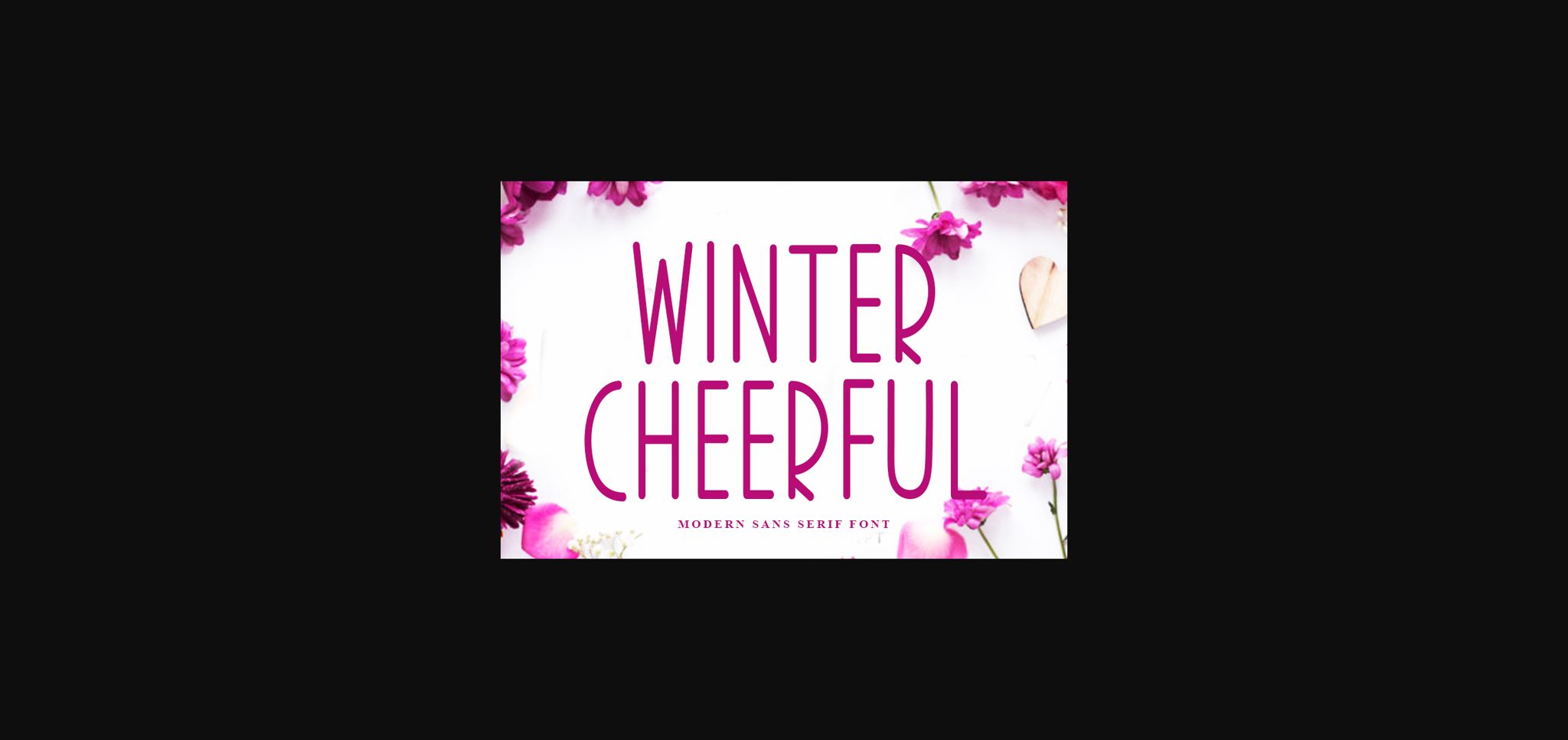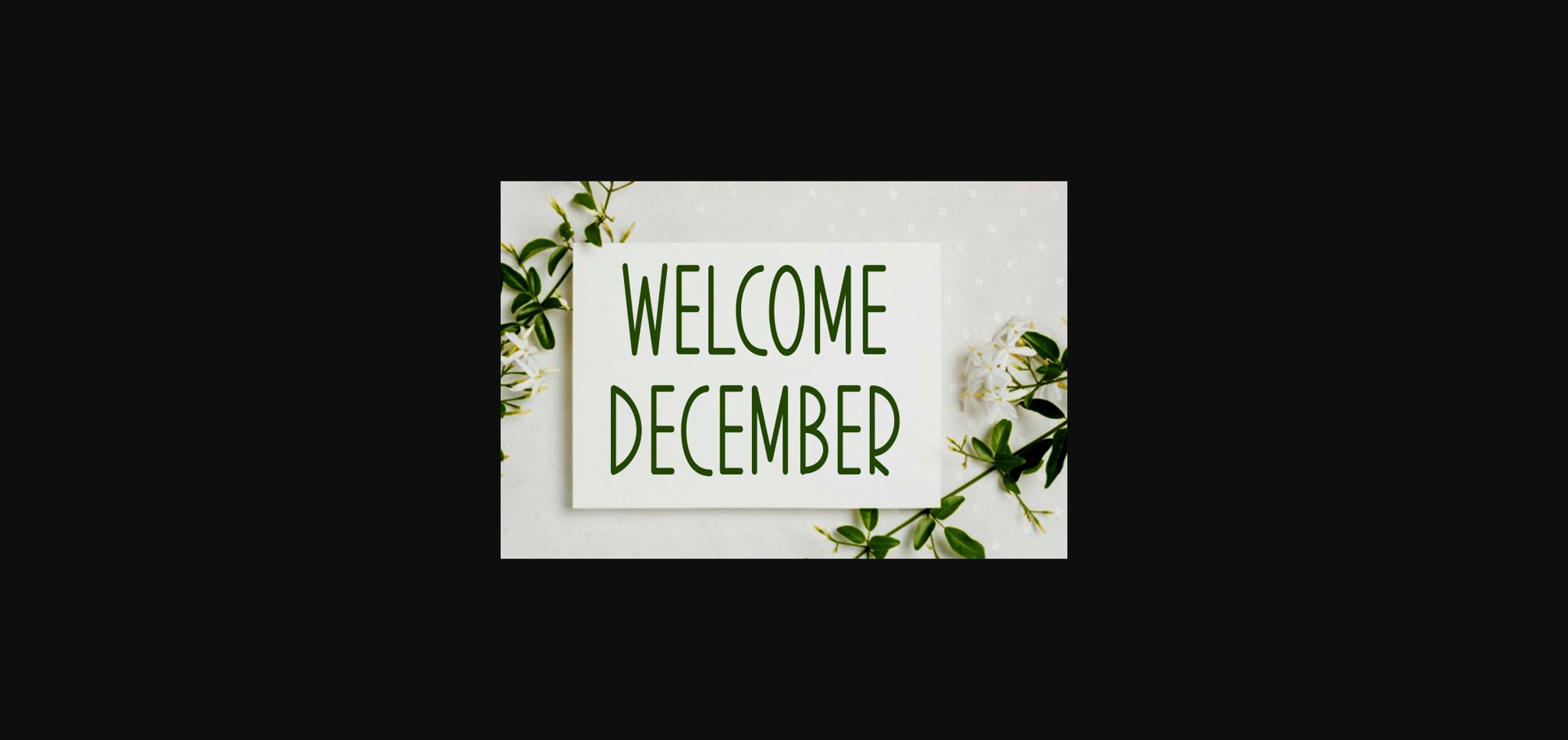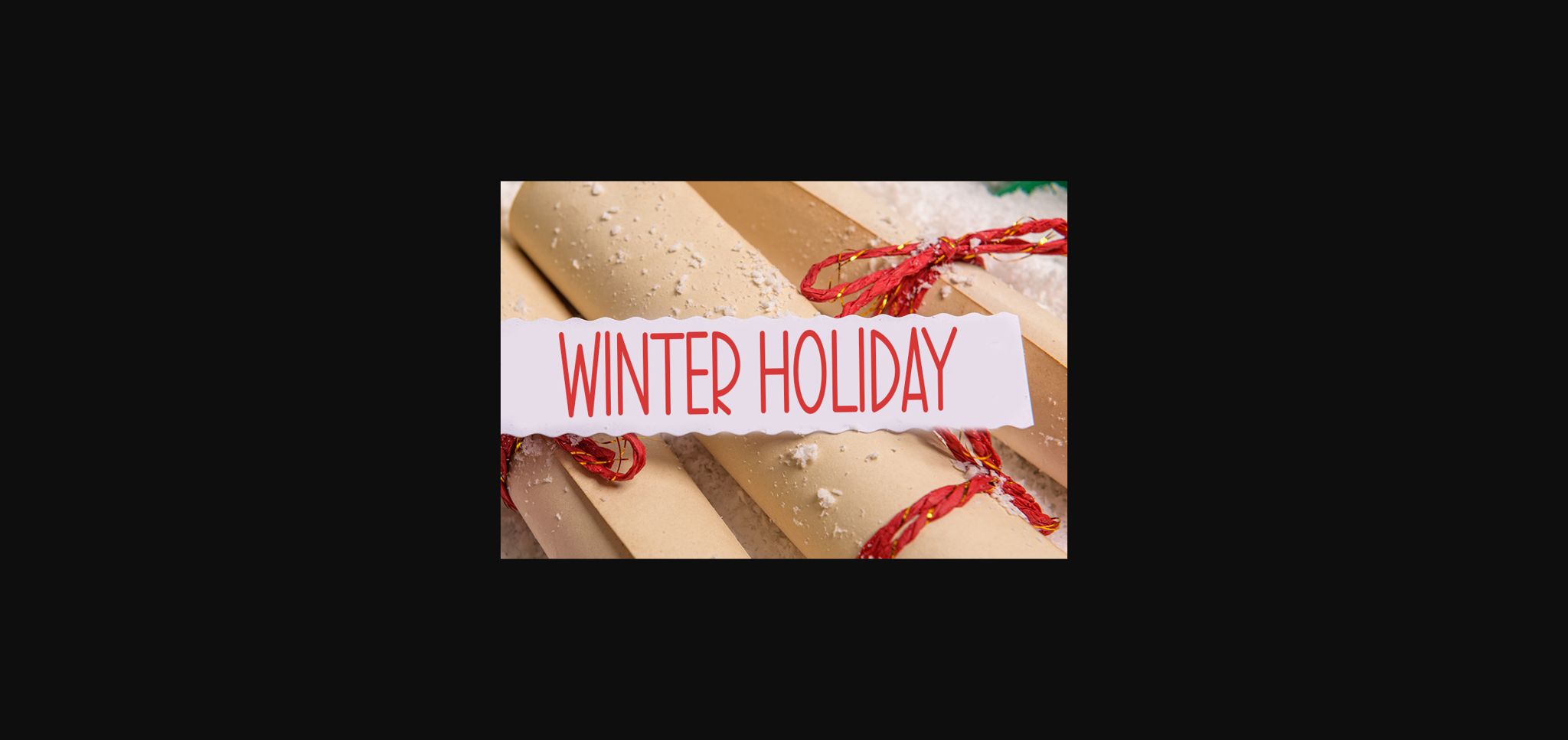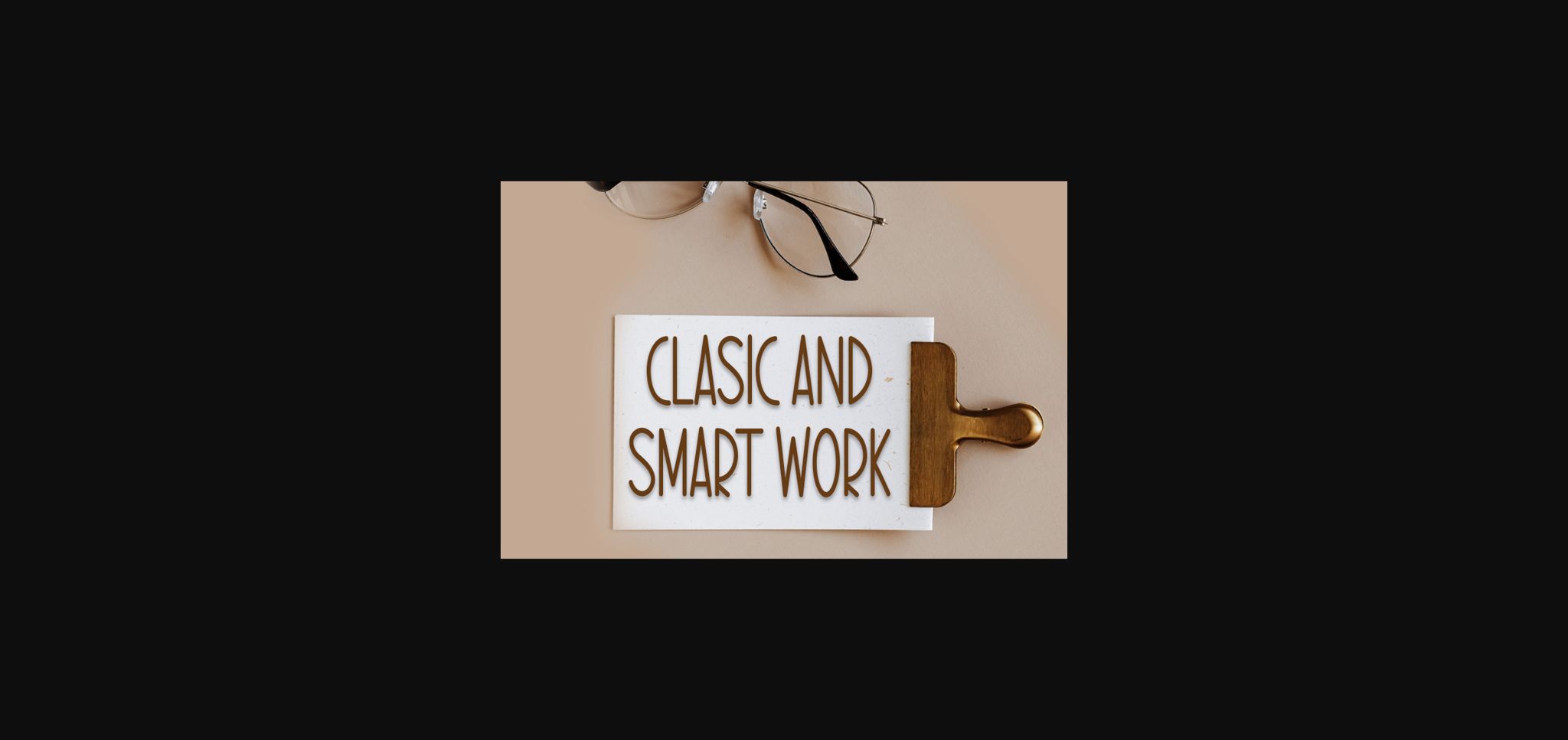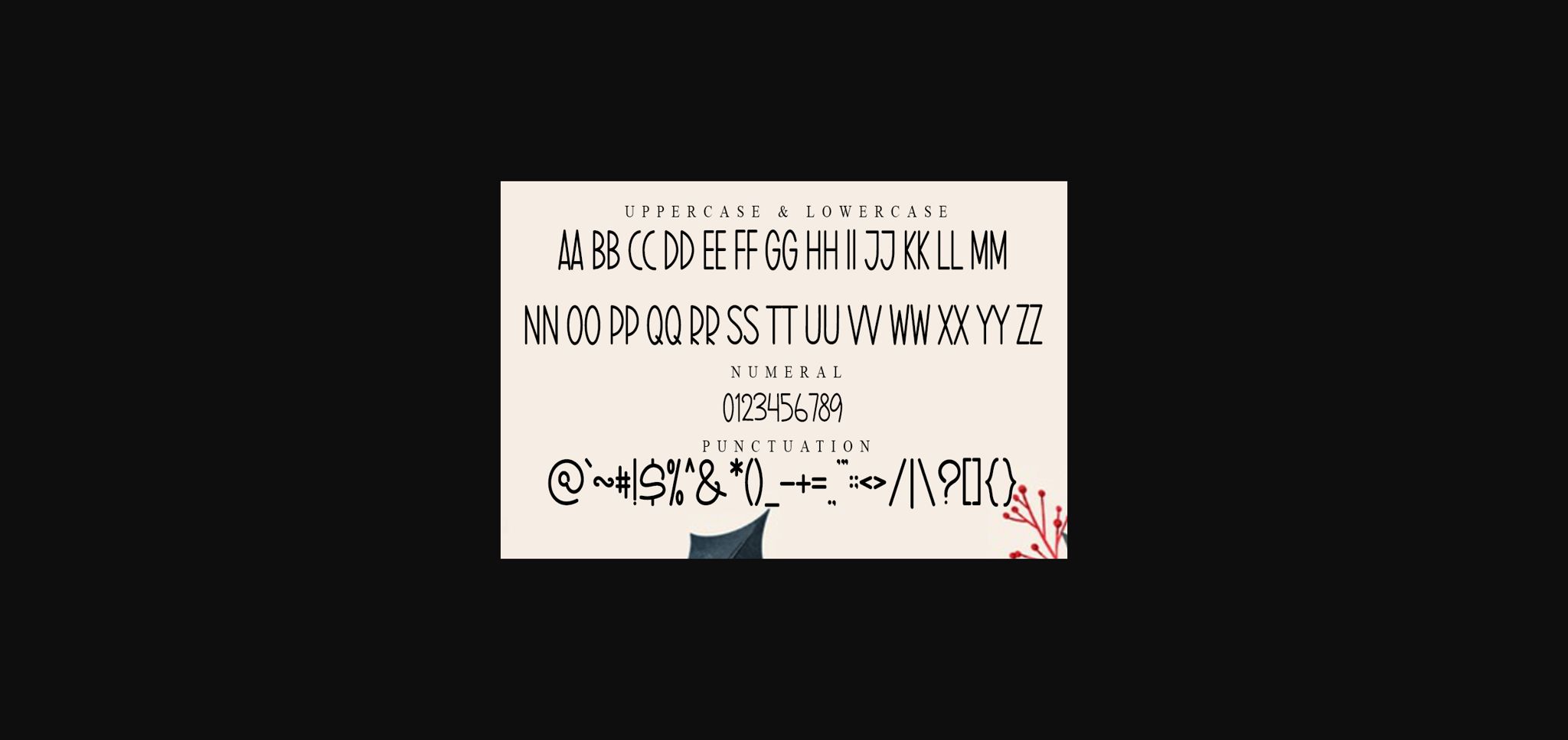
About Winter Cheerful Font
Winter Cheerful is a thin lettered and neat sans serif font. It can be used for various purposes such as logos, headings, t-shirts, letterhead, signage, labels, news, posters, badges and so much more.